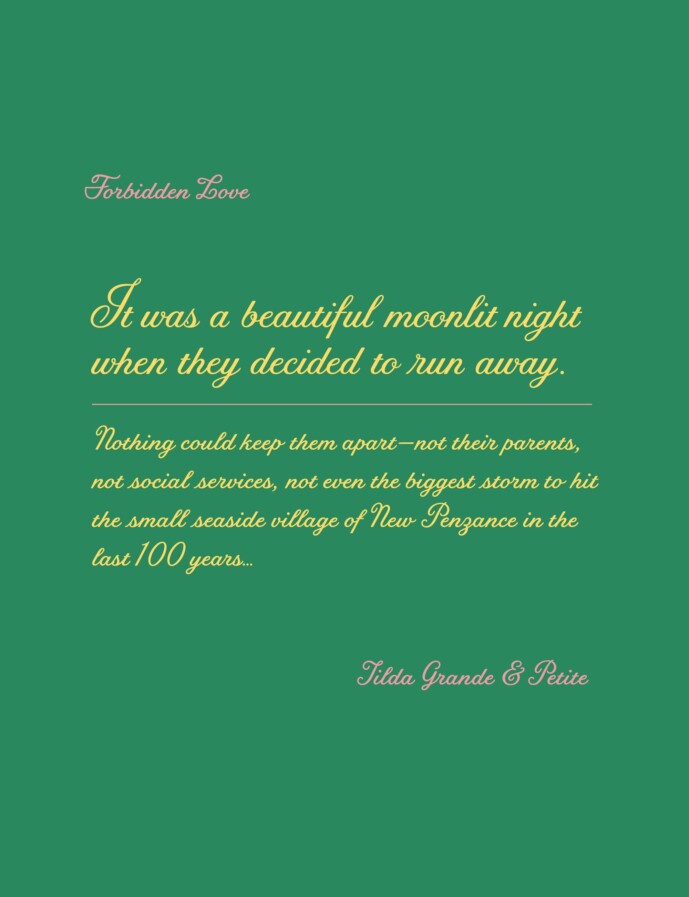
This typeface for Moonrise Kingdom set the tone for a sweet movie about youthful innocence. Inspired by director Wes Anderson’s quaint aesthetic and the titles from La Femme Infidéle (1969), Tilda is formally dressed, without hiding its raw, intentional naïveté. Unusual for a script typeface, it comes in two size-specific styles to preserve its delicate qualities for uses big and small, on page or screen. For all fonts and digital products, please read the End User License Agreement before purchasing. You will receive a download link via email immediately upon purchase.